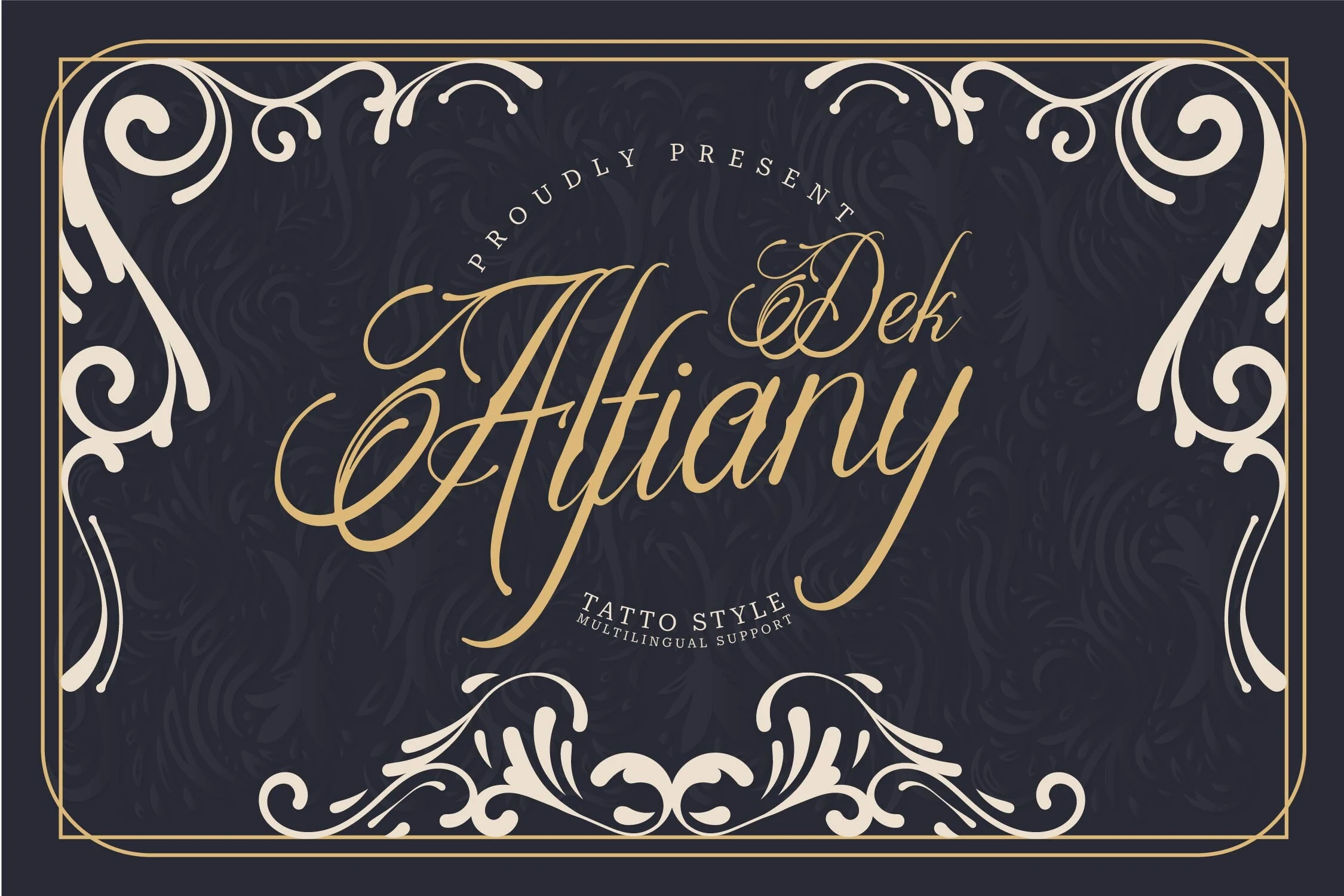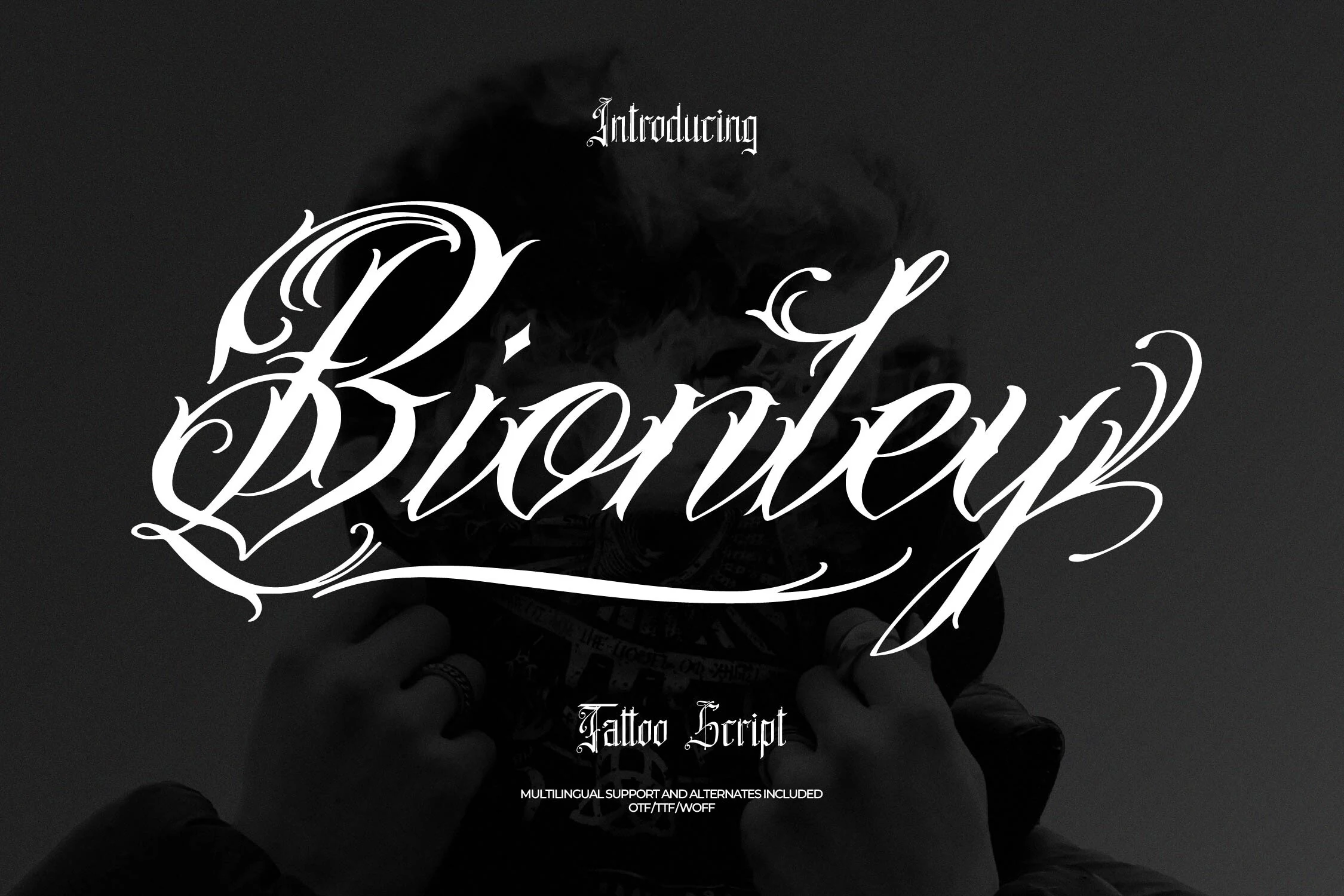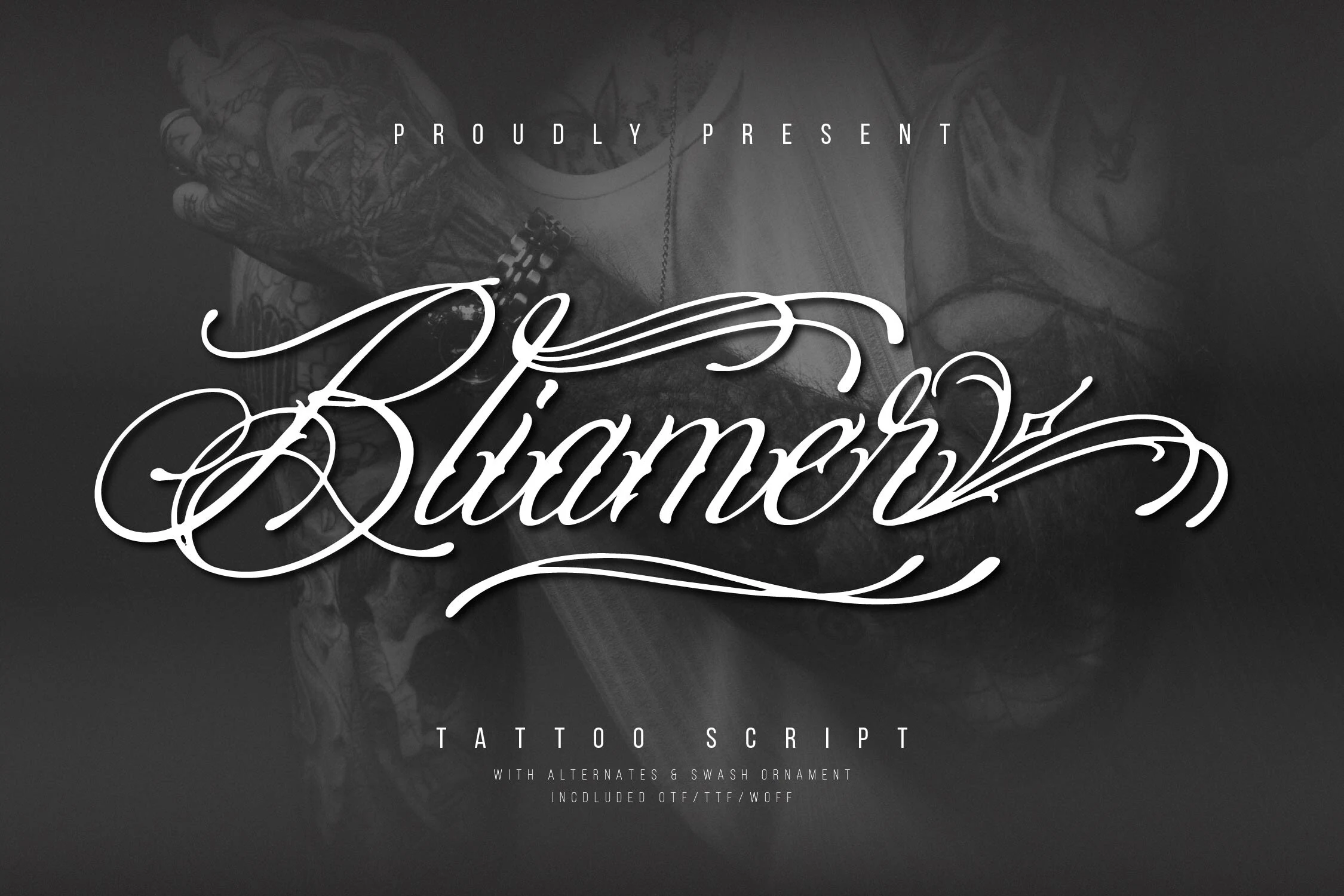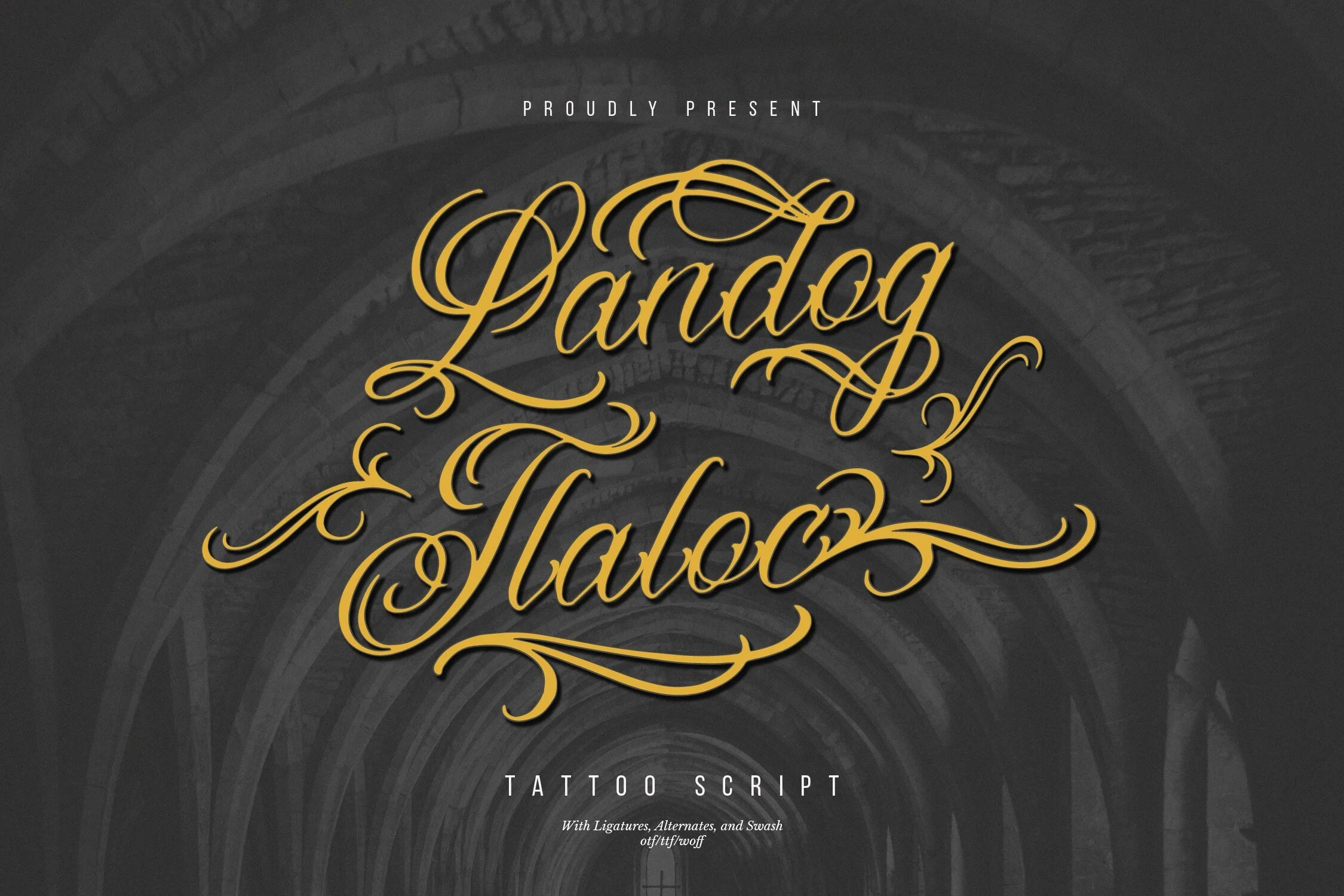
24 Best Tattoo Script Fonts for Tattoo Designs in 2026
This collection spans ornate connected calligraphy, gothic blackletter, distressed lettering, and expressive handwritten scripts, moving from graceful swashes to sharp, fractured terminals. Tattoo Script Fonts are most useful for logos, apparel, posters, packaging, studio identities, and other short display work where tone matters as much as readability.
Tattoo Script Fonts: Flowing Calligraphic
Tattoo Script Fonts in this group emphasize flowing, right-leaning connections, high contrast, and elaborate swashes, giving them a calligraphic movement that is softer and more fluid than the darker groups.
Tattoo Studio Font
Tattoo Studio Font rendered in connected calligraphic script with high stroke contrast and elaborate ornamental swashes.
Tattoo Studio Font pairs high thick-and-thin contrast with connected cursive forms and extensive swashes. This Tattoo Script Fonts option is best kept large, where its ornamental lettering can anchor a logo or display title without losing clarity.
Shatoryu Font
Shatoryu Font displayed in an ornate calligraphic script with connected flowing letters, high stroke contrast, and decorative swashes.
Shatoryu Font builds its character through interconnected loops, flowing joins, and strong stroke contrast. The dense decoration favors short phrases, quotes, and invitations set at generous sizes rather than compact text.
Blaimer Font
Blaimer Font shown as a highly decorative connected script with strong stroke contrast, rightward slant, and long sweeping flourishes.
Blaimer Font suits large-format logos, packaging, and posters, where its wide build and pronounced rightward slant have room to sweep across the composition. High contrast, connected letters, and extensive flourishes give it a strongly expressive presence, but those details become harder to read when reduced.
Quillstone Font
Quillstone Font showing an ornate connected script with high stroke contrast, dramatic swashes, and an angled italic slant.
Quillstone Font uses bold lines, high contrast, an angled italic slant, and intricate glyphs to create forceful display lettering. Its complex swashes need scale, making T-shirts, stickers, headlines, and other short applications more practical than paragraphs.
Alfiany Dek Font
Alfiany Dek Font showing a decorative high-contrast script with connected cursive letters and ornate flourishes.
Alfiany Dek Font combines a slanted axis with connected cursive letters, pointed strokes, and elaborate swashes. The vintage movement reads most effectively in branding, packaging, and posters, where the lettering can stay large enough to preserve its intricate details.
Bionley Font
Bionley Font displayed in a high-contrast connected calligraphic script with elaborate swashes and flowing loops.
Bionley Font distinguishes itself with a Chicano-inspired calligraphic structure, smooth connected letters, and high contrast. This Tattoo Script Fonts choice works best for personal branding, short phrases, invitations, and other large display treatments.
Landog Tlaloc Font
Landog Tlaloc Font featuring highly decorative swashes and flourishes and high stroke contrast between thick and thin lines
Landog Tlaloc Font adds looped crossbars and distinctive terminals to a right-leaning connected structure. The detailed swashes are most useful in logos, packaging, branding, and posters where the lettering can remain large and legible.
Ababil Script Full Font
Ababil Script Full Font with flowing connected letterforms, ornate swashes, high stroke contrast, and a pronounced rightward slant.
Ababil Script Full Font provides OpenType alternates, contextual alternates, and ligatures for shaping connected lettering in different compositions. The added control helps logos and headlines, but extended swashes still require display scale to protect word recognition.
Gothic, Blackletter, And Dark Forms
These scripts combine connected lettering with blackletter shapes, pointed terminals, and dense decoration. Their sharper silhouettes create a darker, more formal character than the flowing calligraphic category.
Nefaryth Font
Nefaryth Font featuring connected, right-leaning calligraphic lettering with high contrast and sweeping ornamental flourishes.
Nefaryth Font pushes connected calligraphy toward a gothic mood with sharp terminals, bold weight, and high contrast. Among Tattoo Script Fonts, it is a focused choice for logos and display text, not extended reading.
Chicago Font
Chicago Font in a connected, right-leaning calligraphic script with sharp terminals and elaborate decorative flourishes.
Chicago Font combines blackletter, elegant script, and Chicano calligraphy into one connected lettering style. Integrated flourishes and pointed terminals give custom branding and streetwear graphics a strong identity, while small captions would be too cramped.
How to Choose the Right Font
Choose by construction before mood: flowing joins and high contrast suit calligraphic marks, while fractured terminals and blackletter shapes create a darker identity. For maximum control, look to alternates and ligatures; for maximum readability, reduce flourishes, increase scale, and reserve Tattoo Script Fonts for short text rather than paragraphs.